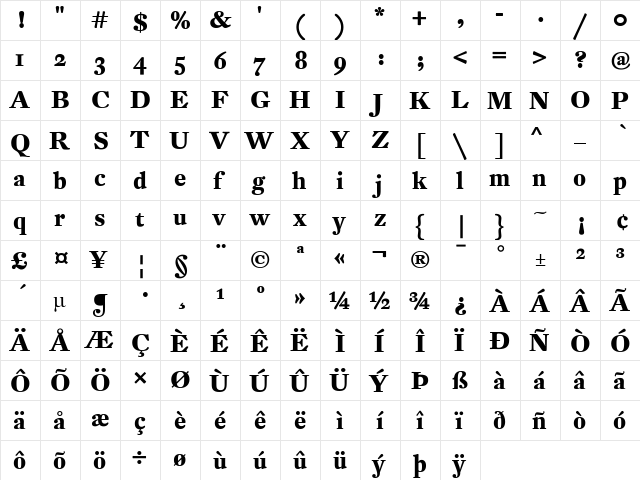
DTLFleischmannST Bold
Design Context for DTLFleischmannST Typeface
DTLFleischmannST offers clean, dependable letterforms without strong stylistic allegiance, making it a practical choice for designers who need flexibility. Its bold stroke weight gives it real presence on the page.